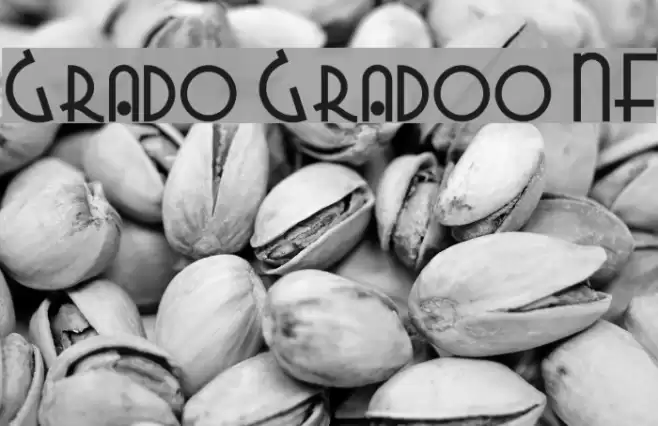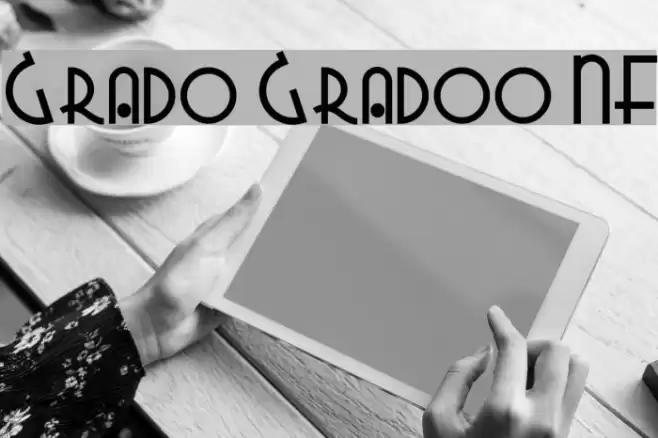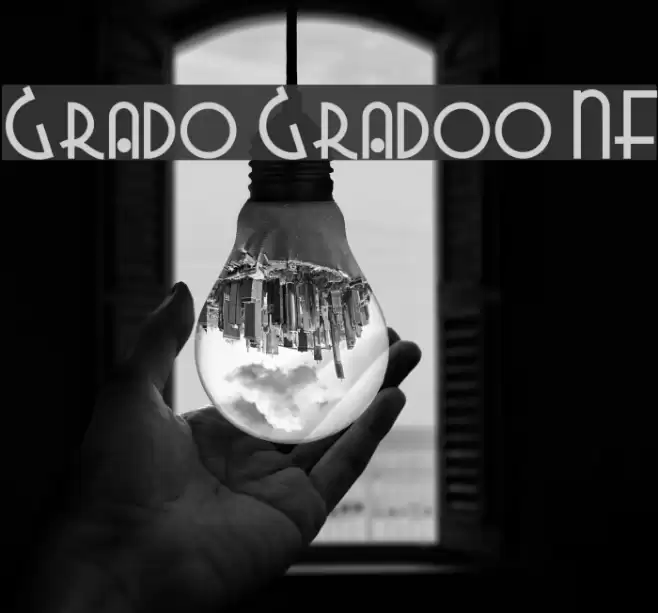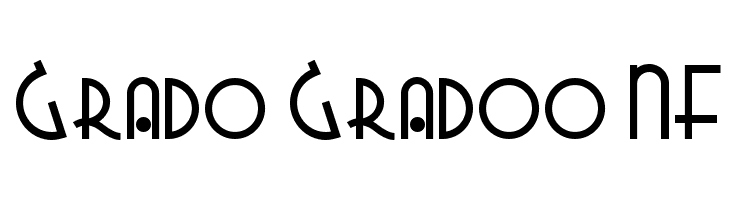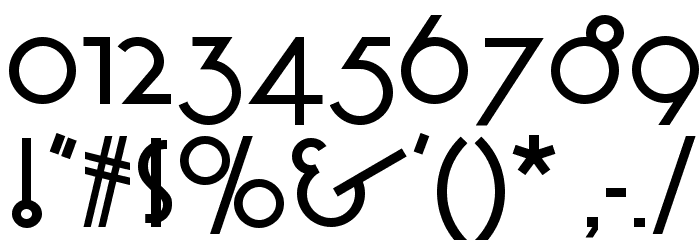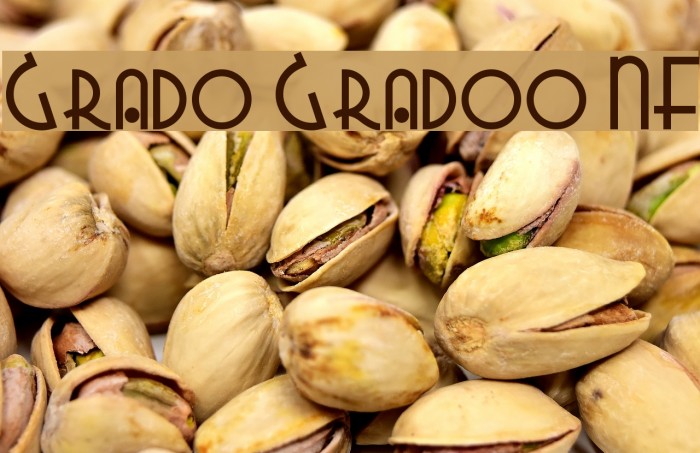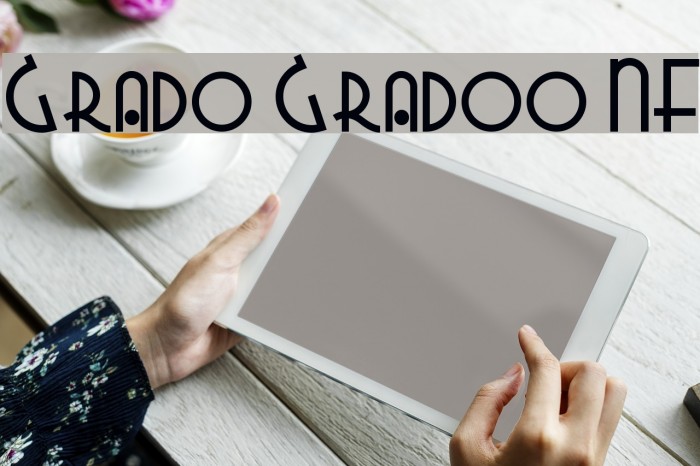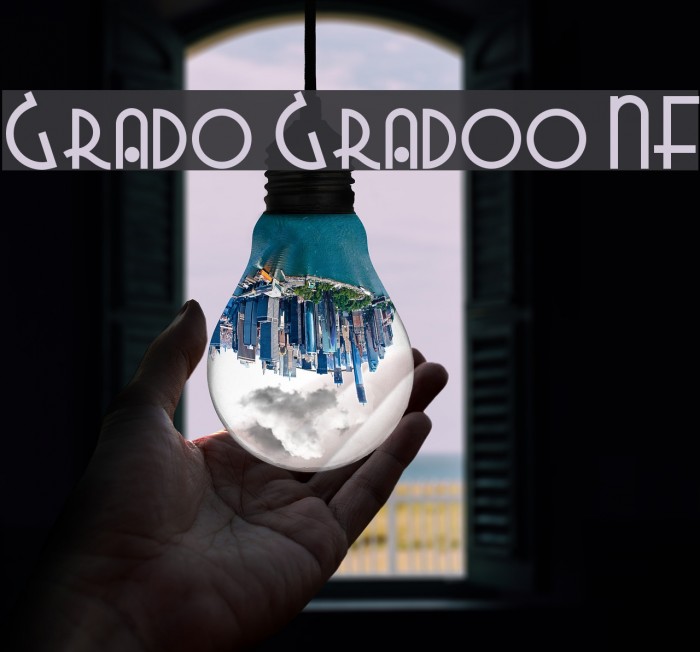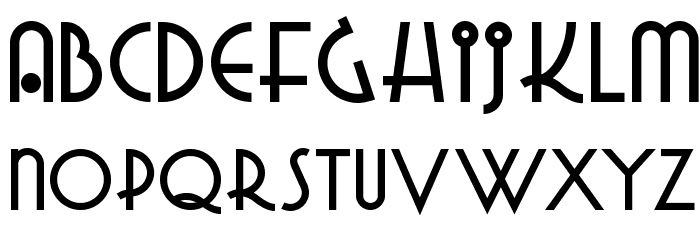
Grado Gradoo NF Font
Grado Gradoo NF Description
This font features a unique and playful design with geometric elements and a modern twist. The uppercase letters are characterized by their bold, rounded shapes and distinct cutouts, creating a sense of movement and energy. The lowercase letters maintain a consistent style, with smooth curves and a slightly condensed appearance. The numerals are equally dynamic, with a mix of straight lines and curves that add to the overall aesthetic. Special characters are creatively designed, incorporating the same geometric theme. This font stands out with its artistic flair, making it suitable for creative and eye-catching designs.
A playful, geometric font with bold, rounded shapes and dynamic cutouts from Retro fonts.
- Proposed Projects: Ideal for branding, posters, album covers, and any project needing a modern, artistic touch.